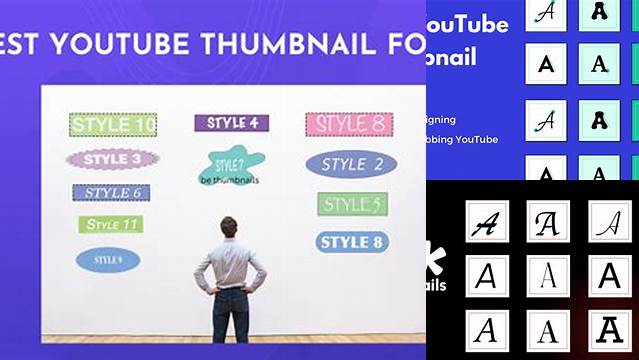
Best YouTube Thumbnail Fonts To Grab Attention
Hey guys! Ever wondered why some YouTube thumbnails just pop while others fade into the background? A huge part of it comes down to your font choice. Choosing the right font can make a massive difference in attracting viewers and boosting your click-through rate (CTR). Think of your thumbnail as a mini-billboard – you've got a tiny space to make a big impact. The right font not only conveys your message but also reflects your brand and the vibe of your content. In this article, we're diving deep into the world of YouTube thumbnail fonts, exploring the best options to make your videos stand out from the crowd. We'll cover everything from readability and visual appeal to matching fonts with your content style. So, buckle up and let's unlock the secrets to creating killer thumbnails that demand attention!
Why Your Font Choice Matters on YouTube
Okay, let's get real – on YouTube, you're fighting for attention. Millions of videos are uploaded daily, which means your thumbnail has to scream, "Click me!" And guess what? Your font plays a starring role in that shout. Think about it: your thumbnail is often the first (and sometimes only) impression potential viewers have of your video. A cluttered, illegible, or just plain boring font can send them scrolling right past, no matter how awesome your content is. But a well-chosen font? That's like a virtual high-five, grabbing their attention and whispering, "You need to watch this." When choosing fonts for YouTube thumbnails, readability is paramount. Your text needs to be crystal clear, even at small sizes, and especially on mobile devices where most people watch videos. Imagine trying to decipher tiny, swirly letters on your phone – frustrating, right? So, avoid overly decorative or thin fonts that can get lost in the thumbnail's visual noise. Instead, opt for bold, clean fonts that are easy on the eyes. But readability is only half the battle. Your font also needs to align with your brand and the content of your video. A playful, cartoonish font might be perfect for a kids' channel but would look totally out of place on a serious documentary. Similarly, a sleek, modern font might suit a tech review video but clash with a cozy cooking vlog. Think of your font as an extension of your brand identity. It should be consistent across your thumbnails, reinforcing your style and making your videos instantly recognizable. Ultimately, the right font will not only attract clicks but also help build a loyal audience who knows what to expect from your channel.
Top Font Categories for YouTube Thumbnails
Alright, let's break down the font scene into categories. Knowing these will help you navigate the font universe and pick the perfect match for your YouTube vibe. We've got a mix of classics and trendy options, so there's something for everyone!
Bold Sans-Serif Fonts
When in doubt, go bold! Bold sans-serif fonts are your reliable best friend for YouTube thumbnails. Think of them as the superheroes of readability – clean, clear, and attention-grabbing, even from a distance. These fonts ditch the fancy frills and focus on delivering your message loud and clear. Why are they so effective? Well, their simplicity is their superpower. Sans-serif fonts lack the small decorative strokes (serifs) found in fonts like Times New Roman, making them appear modern and uncluttered. And when you crank up the boldness, you create a visual anchor on your thumbnail, instantly drawing the viewer's eye. Some of the most popular bold sans-serif choices include Impact, Bebas Neue, Montserrat, and Open Sans. Impact is a classic for a reason – it's super thick and punchy, perfect for short, impactful headlines. Bebas Neue is another favorite, with its tall, condensed letters that maximize space on your thumbnail. Montserrat offers a more contemporary feel, while Open Sans provides a clean and versatile option that works in almost any context. But the real magic happens when you combine a bold sans-serif font with strategic color choices and a compelling image. Imagine a bright yellow "5 TIPS" in Impact font against a dynamic background – that's a thumbnail that's practically begging to be clicked! Remember, the goal is to make your thumbnail text instantly legible, even on small screens. Bold sans-serif fonts nail this, ensuring your message hits home in a split second. They're the foundation of many successful YouTube thumbnails, and for good reason.
Strong Serif Fonts
While sans-serif fonts are the reigning champions of online readability, don't count out the strong serif fonts just yet! These fonts, with their classic serifs (those little strokes at the ends of letters), can bring a touch of elegance and sophistication to your thumbnails. They're perfect for channels that want to project a sense of authority, tradition, or even a hint of vintage charm. But here's the key: you need to choose your serif fonts wisely. Not all serifs are created equal, especially when it comes to thumbnails. Fussy, ornate serifs can get lost in the visual noise, making your text look cluttered and difficult to read. Instead, opt for strong, clean serif fonts with bold strokes and clear letterforms. Think of fonts like Playfair Display, Merriweather, or Roboto Slab. Playfair Display exudes a sense of timeless elegance, while Merriweather offers a more approachable and readable serif option. Roboto Slab strikes a balance between serif and sans-serif, with its blocky serifs and modern feel. The secret to using serif fonts effectively in thumbnails is to pair them with ample spacing and contrasting colors. Give your text room to breathe, and make sure it stands out against the background image. Consider using a color overlay or a dark background to make your serif font pop. Serif fonts can be particularly effective for channels focused on topics like history, literature, art, or even cooking. They can add a touch of class and credibility to your thumbnails, setting you apart from the crowd. However, if your channel is all about high-energy, fast-paced content, a sans-serif font might be a better fit. Ultimately, the choice is yours – experiment with different serif fonts and see what resonates with your audience and your brand.
Playful Script and Display Fonts
Ready to inject some personality into your thumbnails? Playful script and display fonts are your secret weapon for adding a touch of fun, creativity, and uniqueness to your videos. These fonts break away from the rigid rules of traditional typography, allowing you to express your brand's character and the tone of your content. But fair warning: these fonts come with a responsibility! While they can be incredibly eye-catching, they can also be tricky to use effectively. Overdo it, and you risk sacrificing readability for style. The key is to use them sparingly and strategically. Think of script and display fonts as the accent pieces in your thumbnail design – they should complement, not overwhelm, the other elements. So, what kind of script and display fonts are we talking about? Well, the possibilities are endless! Script fonts range from elegant cursive styles to hand-drawn brush scripts, while display fonts encompass everything from quirky and cartoonish to bold and futuristic. Some popular choices include Lobster, Pacifico, Luckiest Guy, and Bungee. Lobster is a classic script font with its flowing, connected letters, while Pacifico offers a more relaxed and beachy vibe. Luckiest Guy is a bold and playful display font with a retro feel, and Bungee is a super-condensed font that's perfect for squeezing in extra text. When using script and display fonts in your thumbnails, always prioritize readability. Choose fonts that are easy to decipher at small sizes, and avoid using them for long blocks of text. Instead, use them for short, impactful words or phrases that grab attention. Pair them with a clean and simple sans-serif font for the body of your text, and make sure the colors and spacing work together harmoniously. These types of fonts are ideal for channels focused on lifestyle, beauty, gaming, or anything with a creative or lighthearted vibe. They can help you create thumbnails that feel authentic and engaging, reflecting your unique personality and style. But remember, a little goes a long way – use these fonts wisely, and your thumbnails will stand out for all the right reasons.
Best Practices for Using Fonts in YouTube Thumbnails
Okay, you've got your font categories down, but choosing a font is just the first step. Now, let's talk about best practices for using fonts in YouTube thumbnails. This is where the magic happens – where you transform a good font choice into a thumbnail masterpiece. Think of these practices as the secret sauce that will make your thumbnails irresistible to viewers.
Prioritize Readability
We've said it before, and we'll say it again: readability is king. No matter how stylish your font is, if viewers can't easily read your thumbnail text, you're missing out on clicks. Remember, people are scrolling through a sea of videos, and they only have a split second to decide whether or not to click. If your font is too small, too thin, too decorative, or clashes with the background, your message will get lost in the noise. So, how do you ensure readability? Start by choosing fonts that are inherently clear and legible, even at small sizes. Bold sans-serif fonts are a safe bet, but strong serif fonts and well-chosen display fonts can also work. Avoid fonts with overly intricate details or extreme variations in stroke thickness. Next, pay attention to your font size. Your text should be large enough to be easily read on both desktop and mobile devices. Test your thumbnails on different screens to make sure your text remains legible. Color contrast is another crucial factor. Your text should stand out clearly against the background image. Use contrasting colors to create visual separation – for example, white text on a dark background or vice versa. If your background is busy or colorful, consider adding a solid color overlay behind your text to improve readability. Finally, don't overcrowd your thumbnail with too much text. Keep your message concise and to the point, and give your text room to breathe. A cluttered thumbnail is a confusing thumbnail, and confusion leads to scrolling. By prioritizing readability, you're making it easy for viewers to understand your video's topic and click on your thumbnail. It's the foundation of a successful thumbnail strategy.
Contrast is Key
In the world of thumbnails, contrast is your best friend. It's the secret ingredient that makes your text pop, your message stand out, and your thumbnail grab attention in a sea of sameness. Think of contrast as the visual spice that elevates your thumbnail from bland to brilliant. So, what exactly do we mean by contrast? Well, it's all about creating visual differences between elements in your thumbnail, particularly between your text and the background. The greater the contrast, the easier it is for viewers to read your text and understand your message at a glance. There are several ways to achieve effective contrast in your thumbnails. Color contrast is the most obvious. Using contrasting colors, such as black and white, blue and yellow, or red and green, can create a striking visual effect that instantly draws the eye. Just make sure your color choices align with your brand and the tone of your video. Value contrast, or the difference between light and dark, is another powerful tool. If your background is dark, use light-colored text, and vice versa. This creates a strong visual separation that makes your text stand out. You can also use a color overlay behind your text to create a solid background that contrasts with the main image. Size contrast is often overlooked, but it can be just as effective. Varying the size of your text elements can create visual hierarchy and draw attention to the most important words. Use larger fonts for your main headline and smaller fonts for supporting text. Finally, font contrast can add visual interest and personality to your thumbnails. Try pairing a bold sans-serif font with a more delicate script or serif font to create a dynamic and eye-catching effect. However, be mindful of readability – make sure your font choices complement each other and don't clash. By mastering the art of contrast, you can create thumbnails that are visually appealing, easy to read, and impossible to ignore. It's the key to cutting through the clutter and getting your videos noticed.
Font Pairing Tips
Alright, let's dive into the art of font pairing. Choosing a single font for your thumbnail is a good start, but combining two complementary fonts? That's where the magic truly happens. Think of font pairing as creating a dynamic duo – two fonts that work together to create a harmonious and visually appealing design. But just like with any partnership, the key is finding the right fit. A bad font pairing can look jarring and unprofessional, while a good one can elevate your thumbnail to the next level. So, how do you find the perfect font match? One of the most reliable strategies is to pair a sans-serif font with a serif font. This classic combination creates a pleasing contrast between the clean lines of the sans-serif and the more traditional serifs. For example, you might pair a bold sans-serif font like Montserrat with a strong serif font like Playfair Display. Another approach is to combine fonts from the same font family. Many font families include a variety of weights and styles, such as regular, bold, italic, and condensed. Using different styles from the same family can create a cohesive and sophisticated look. For instance, you could pair Open Sans Bold with Open Sans Regular. If you're feeling adventurous, you can try pairing two display fonts, but proceed with caution! This can be a tricky combination to pull off, as it's easy to create a cluttered and overwhelming design. If you do go this route, make sure the fonts have distinct personalities and don't compete with each other. Ultimately, the best way to learn font pairing is to experiment and see what works best for your brand and your content. Don't be afraid to try different combinations and get feedback from others. And remember, readability is always the priority. No matter how stylish your font pairing is, if your text is difficult to read, you're missing the mark.
Conclusion: Your Thumbnails, Your Fonts, Your Success
So, there you have it! We've journeyed through the world of YouTube thumbnail fonts, exploring the best categories, practices, and resources to help you create eye-catching visuals that get clicks. Remember, your font choice is a powerful tool. It's not just about aesthetics – it's about communication, branding, and ultimately, your success on YouTube. By prioritizing readability, mastering contrast, and understanding font pairing, you can craft thumbnails that grab attention and draw viewers in. And with the wealth of free and paid font resources available, there's no limit to the creativity you can unleash. So, go forth, experiment with different fonts, and discover the perfect typography to represent your channel and your content. Your thumbnails are your mini-billboards in the YouTube universe – make them count! Choose fonts that are bold, clear, and align with your brand. And most importantly, have fun with it! The right fonts can transform your thumbnails and elevate your entire YouTube presence. Now go out there and create some amazing visuals!